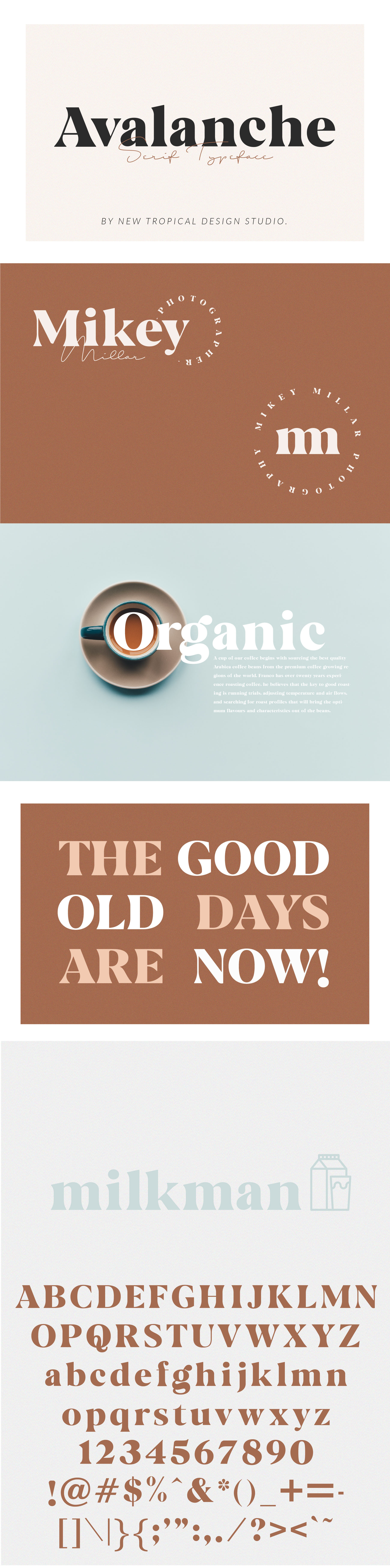
Avalanche - Serif Font
Avalanche is a classic Caslon style serif typeface. It's thick curves give a 70s groovy vibe with the serifs bringing it slightly back to traditional. This versatile font can be used for wordmark logos, mastheads, pull quotes & monograms showing both feminine and masculine qualities. Pairing script font is https://creativemarket.com/rolandhuse/1056715-Shopping-Script
- With numbers and punctuation